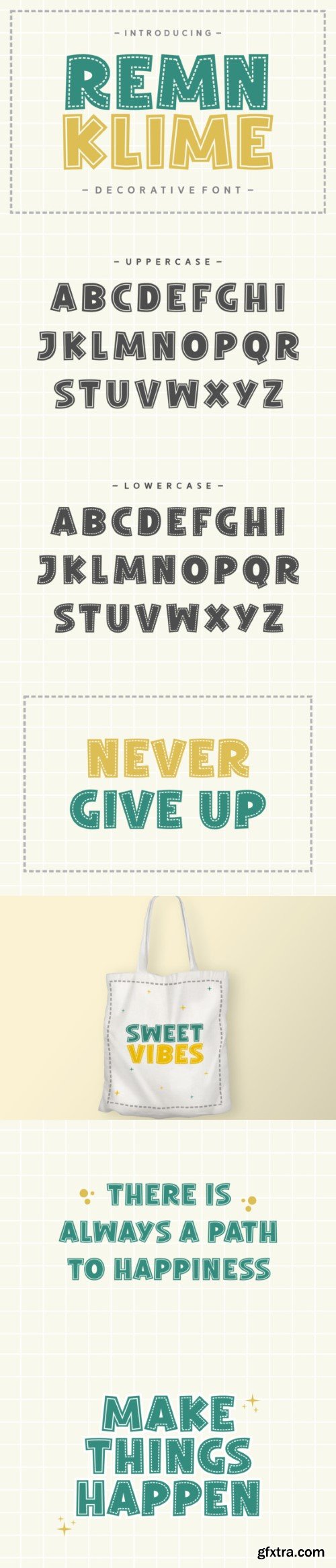
remnants Klime Font
Remn Klime is a bold and eye-catching display font that commands attention with its distinctive style. Perfect for making a statement in headlines, titles, or posters, this font exudes a sense of strength and modern flair. With clean lines and a contemporary aesthetic, Remn Klime effortlessly adds a touch of sophistication to your design projects. Elevate your visuals with this versatile and impactful display font, making every word stand out with its powerful presence.